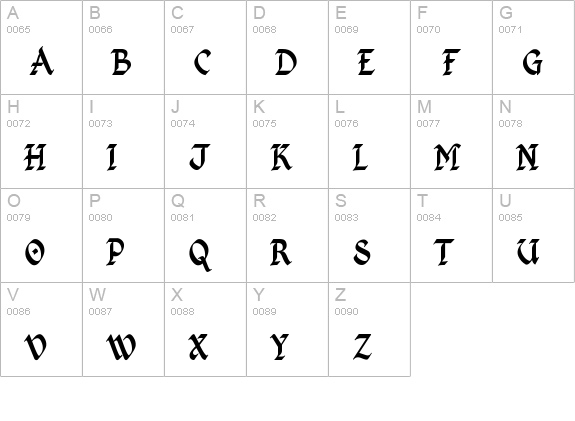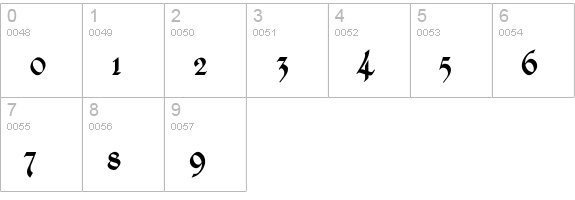
Introducing Kingthings Calligraphica, a mesmerizing font that effortlessly captures the elegance and grace of calligraphy. With its intricate strokes and delicate curves, this font exudes a timeless charm that is sure to captivate any reader. Kingthings Calligraphica is not only a visually stunning font, but it also offers a level of versatility that makes it perfect for a variety of design projects. Whether you are creating wedding invitations, branding materials, or adding a touch of sophistication to your personal blog, this font will elevate your work to new heights. What sets Kingthings Calligraphica apart from other fonts is its unique ability to strike the perfect balance between classic and contemporary. It seamlessly blends traditional calligraphy with a modern twist, resulting in a font that is both timeless and fresh. One of the most remarkable aspects of Kingthings Calligraphica is that it is free. Yes, you read that right – this exquisite font is freely available to download at FontsMarket.com. Now, you can add a touch of elegance to your designs without breaking the bank. Downloading Kingthings Calligraphica is a breeze. Simply visit FontsMarket.com, locate the font, and with just a few clicks, it will be at your fingertips. Its compatibility with various design software ensures a seamless integration into your creative projects. So, whether you are a seasoned designer or a beginner exploring the world of typography, Kingthings Calligraphica is the font that will take your designs to the next level. With its stunning aesthetics, versatility, and the fact that it is freely accessible at FontsMarket.com, there is no reason to hesitate. Download Kingthings Calligraphica today and let your creativity flourish.